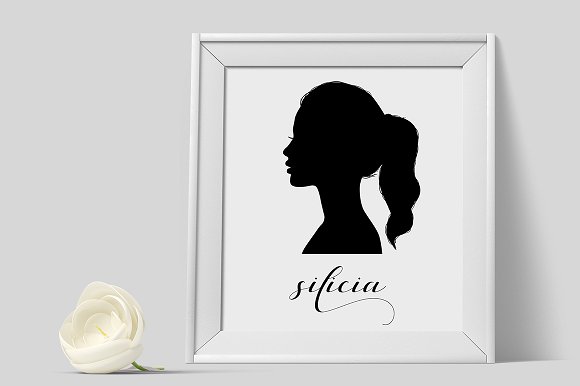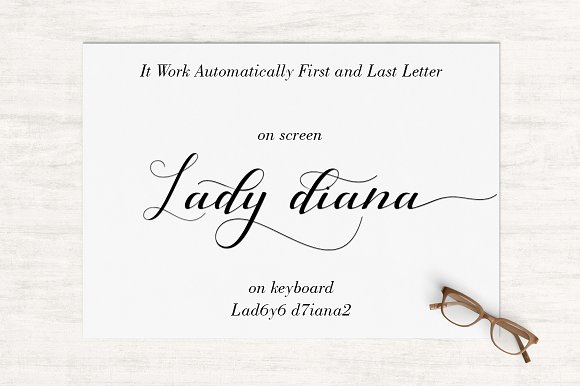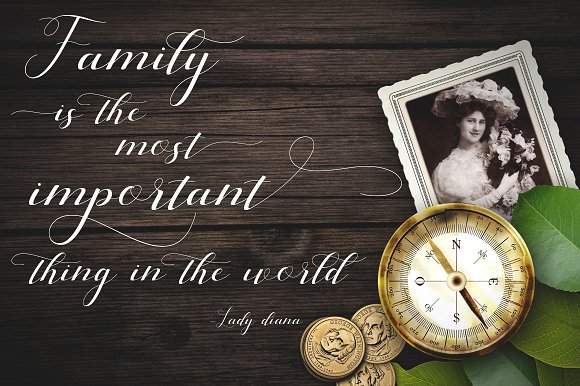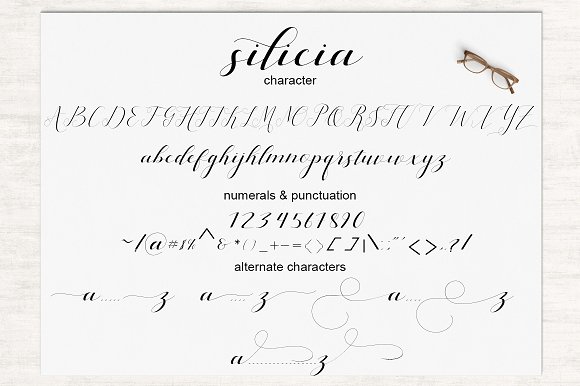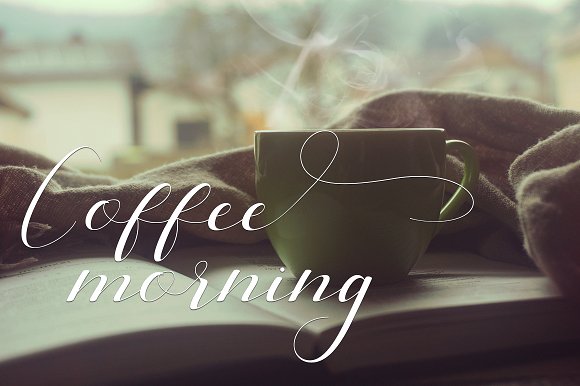
Introduction to Silicia Font
Silicia is a fresh script font packed with over 300 carefully drawn glyphs.
This is the perfect font for creating personalized designs such as invites, signatures, thank you cards and photo overlays .